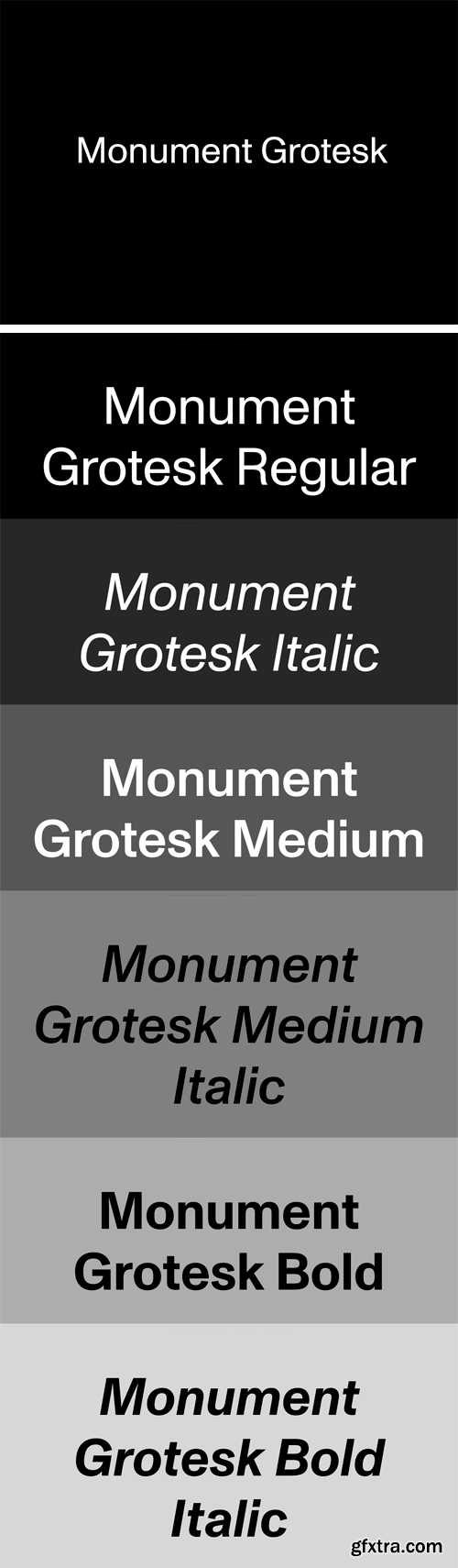
Monument Grotesk Font Family
Monument Grotesk owes its point de départ to a few contours Kasper-Florio stumbled upon online in 2013 in Palmer & Rey’s New Specimen Book, 1884, on page 81. It relied on a sturdy and compact skeleton, high vertical contrast and surprisingly sharp end strokes. The “o” “c” and “e”, with their squarish inner counters pressing against their outer parts, or the elongated “r”, in particular, gave reason for a couple of screenshots, and later, a digitisation.
Since founding their studio in 2013, Kasper-Florio have masterfully worked on commissions from the Swiss cultural design landscape and been awarded the prestigious Most Beautiful Swiss Books prize in 2013, 2016 and 2017. Their output is conceptually to the point, awfully consistent and print-fetishistic – with Monument Grotesk serving as their house typeface almost exclusively. Always challenging their commissions and respective reproduction techniques, the typeface design has been revised to meet Kasper-Florio’s expectations in Screen Printing (Helmhaus Zurich, 2014), as Foil Embossing (Missue, 2014), as Digital Print on textile (Solarnet, 2015), in Offset Printing (Werkschau Thurgau, 2016 or Swiss Poster Festival Weltformat, 2017) and on Screen (PIN Systems, 2018). Monument Grotesk carries the chronology of its development within itself: two characteristic stages of the "r"-glyph, “r.2” (2015) and “r.1” (2014), have been re-introduced to the character set – allowing you to travel back in time by using the typeface’s OpenType features. Having proven its versatility already, Monument Grotesk was released first in one weight only and subsequently extended into a full family of three weights and corresponding Italics during summer 2018.